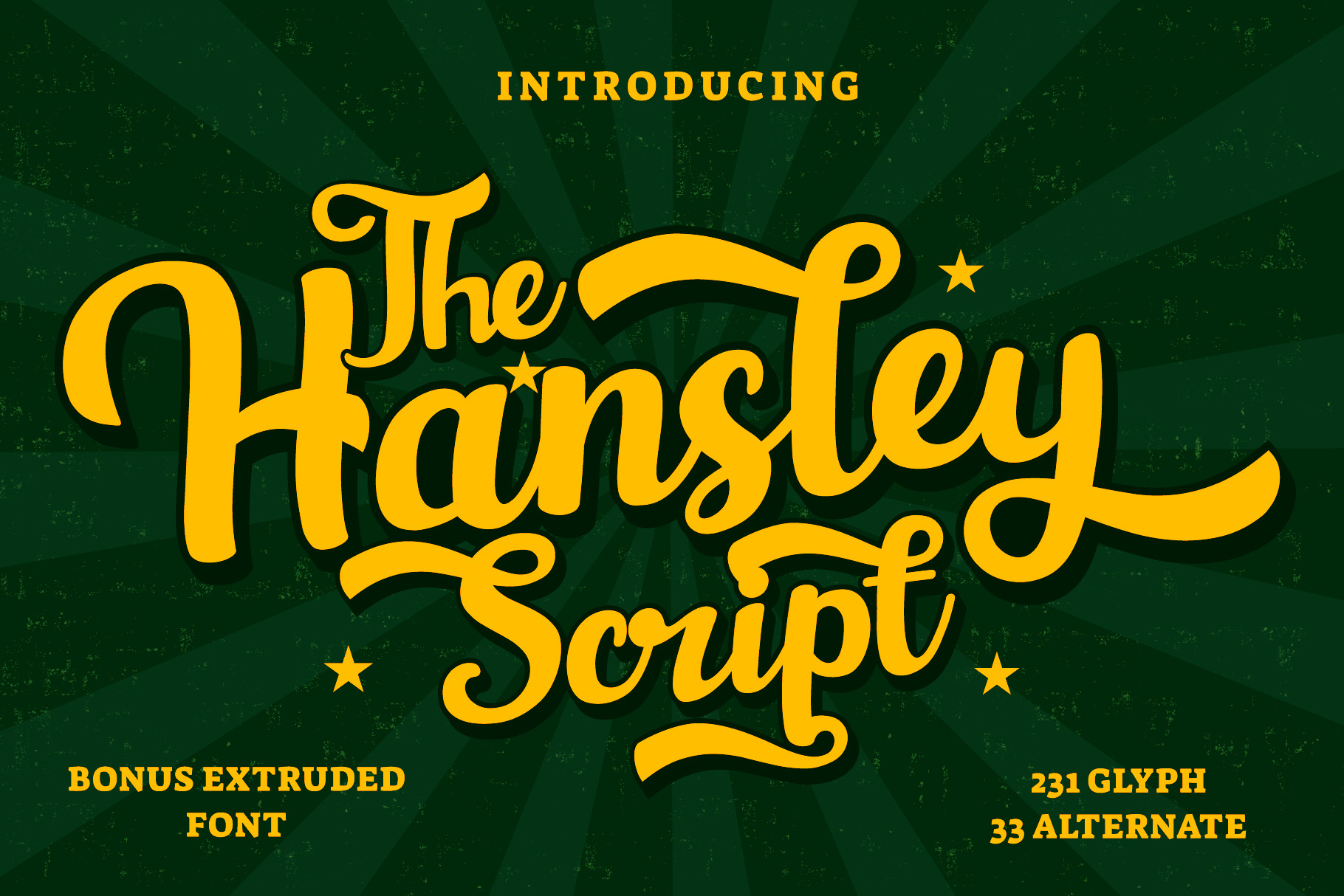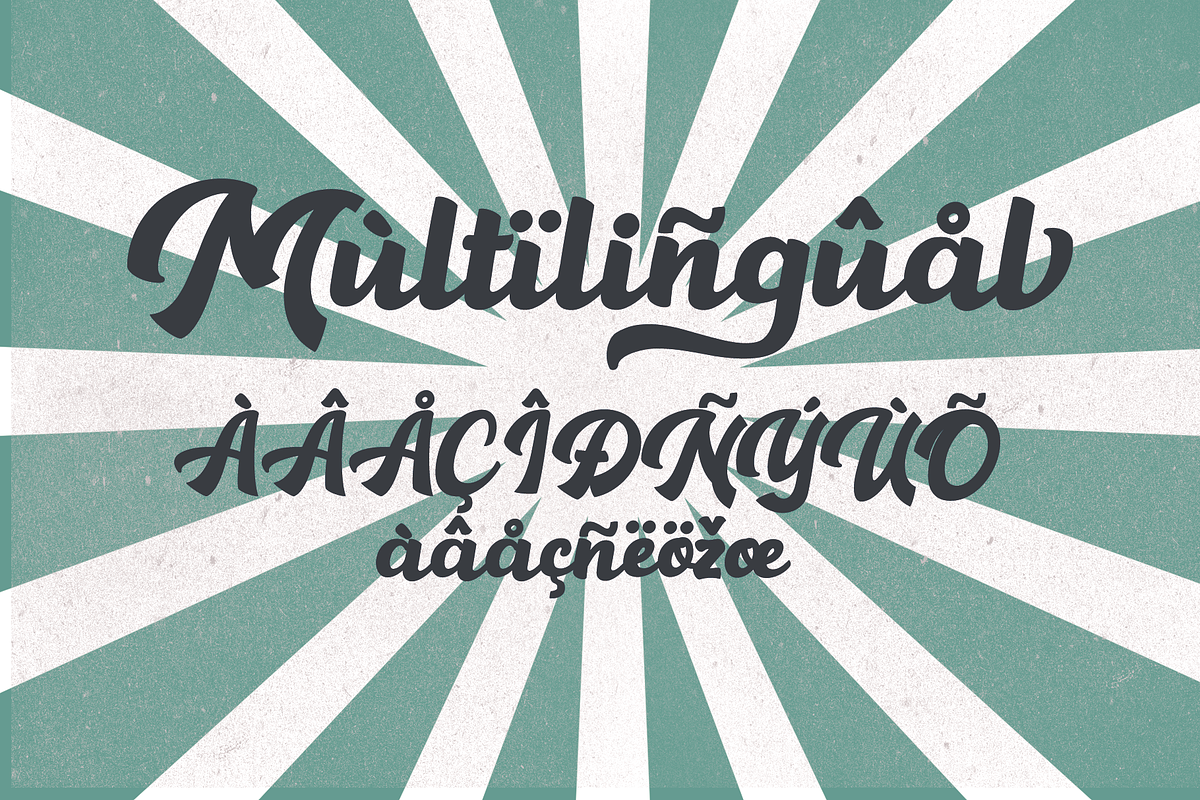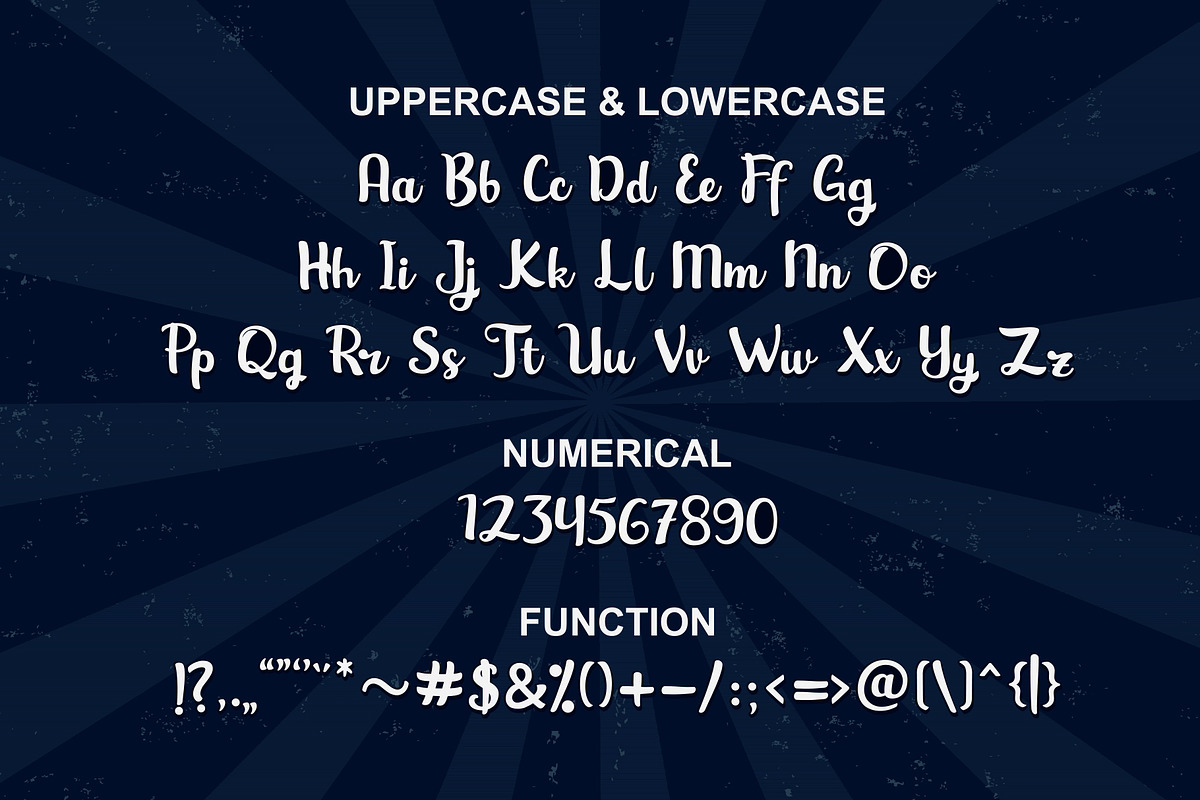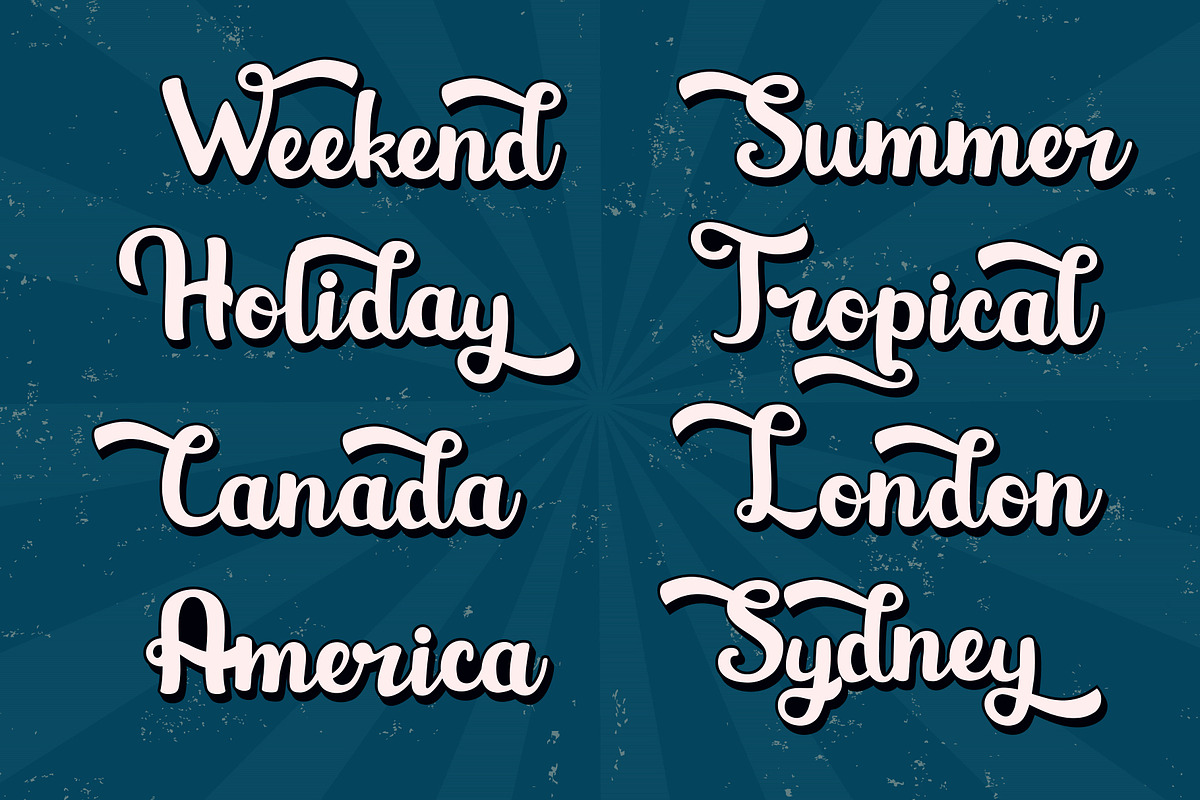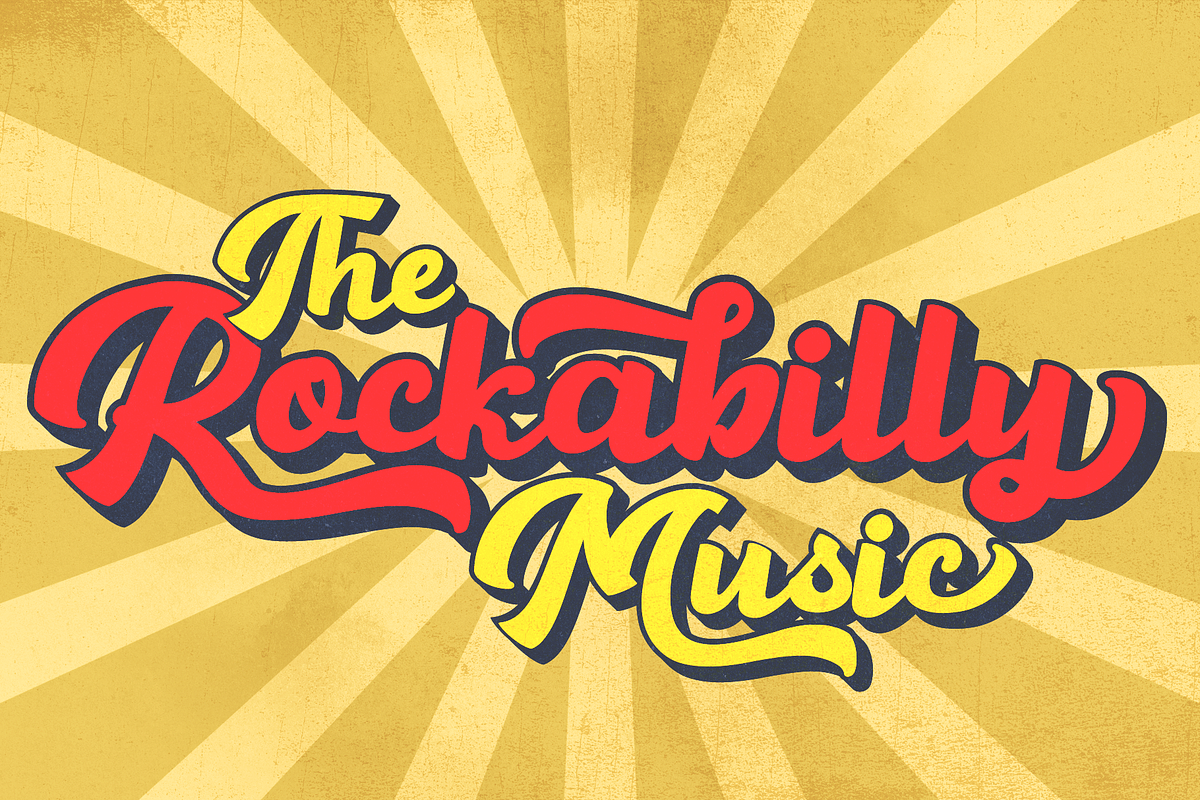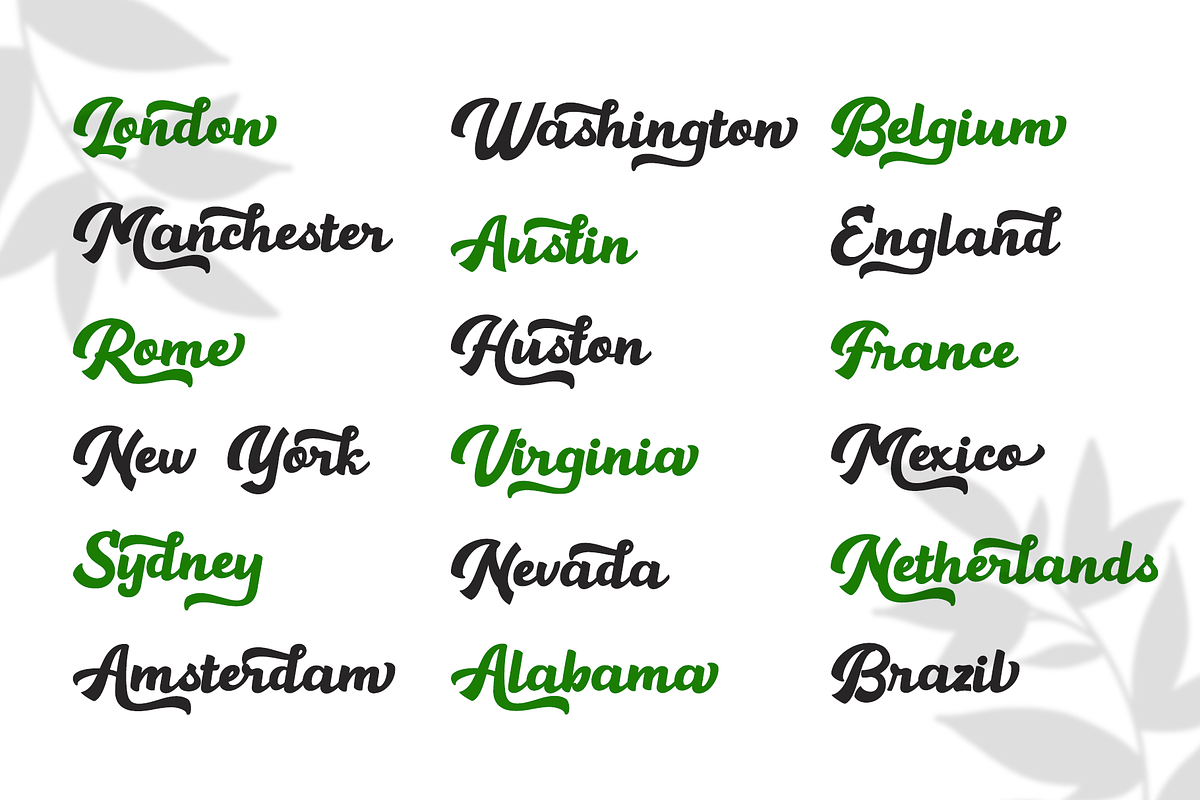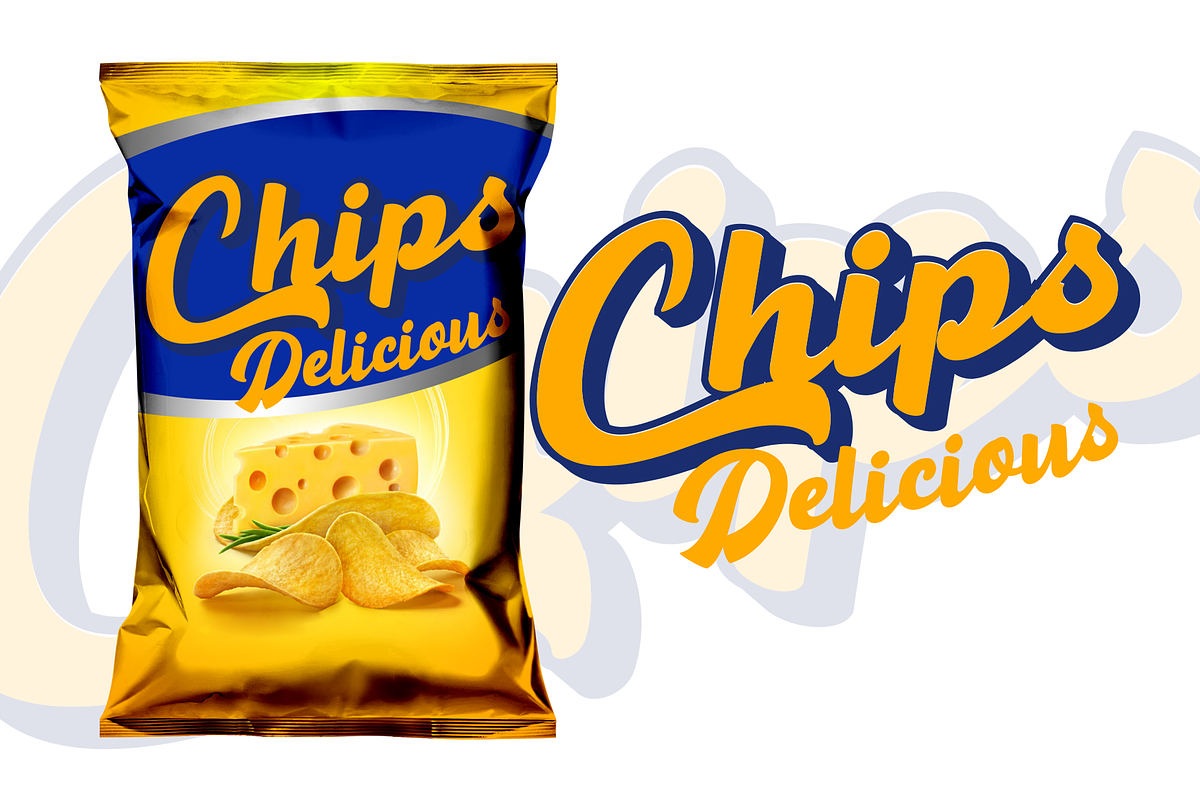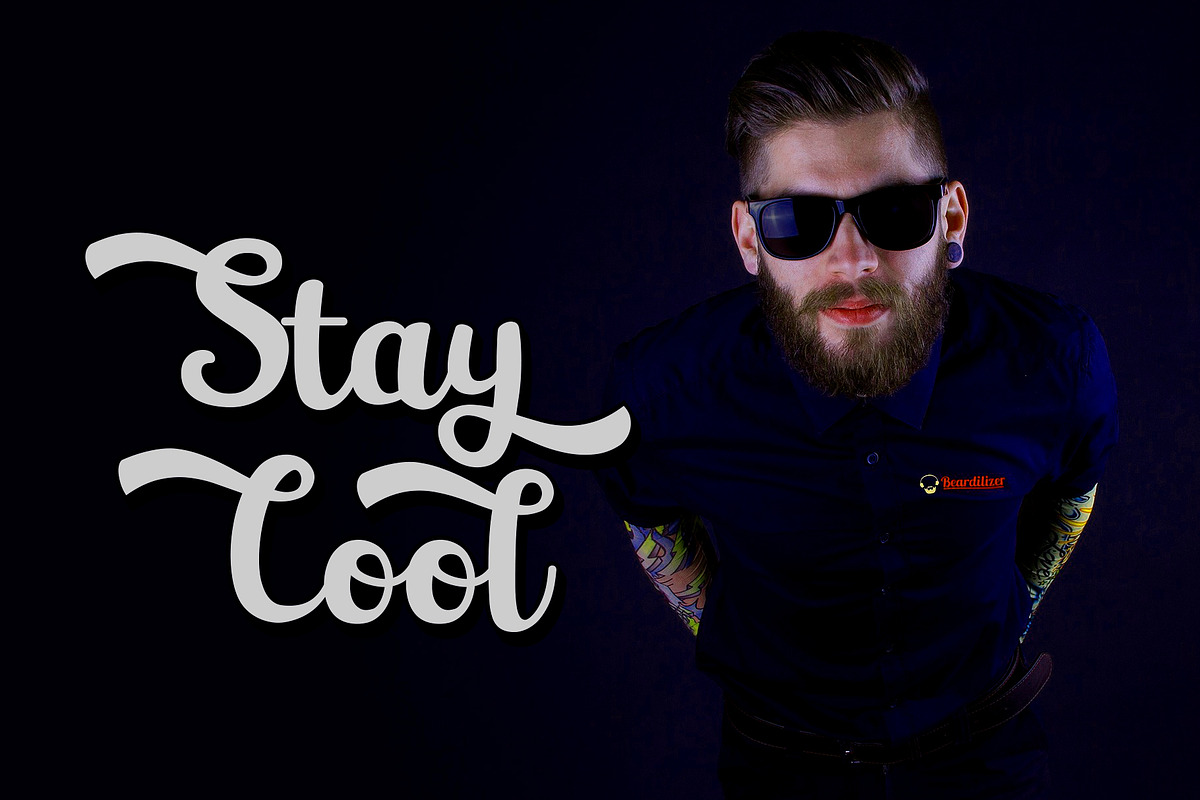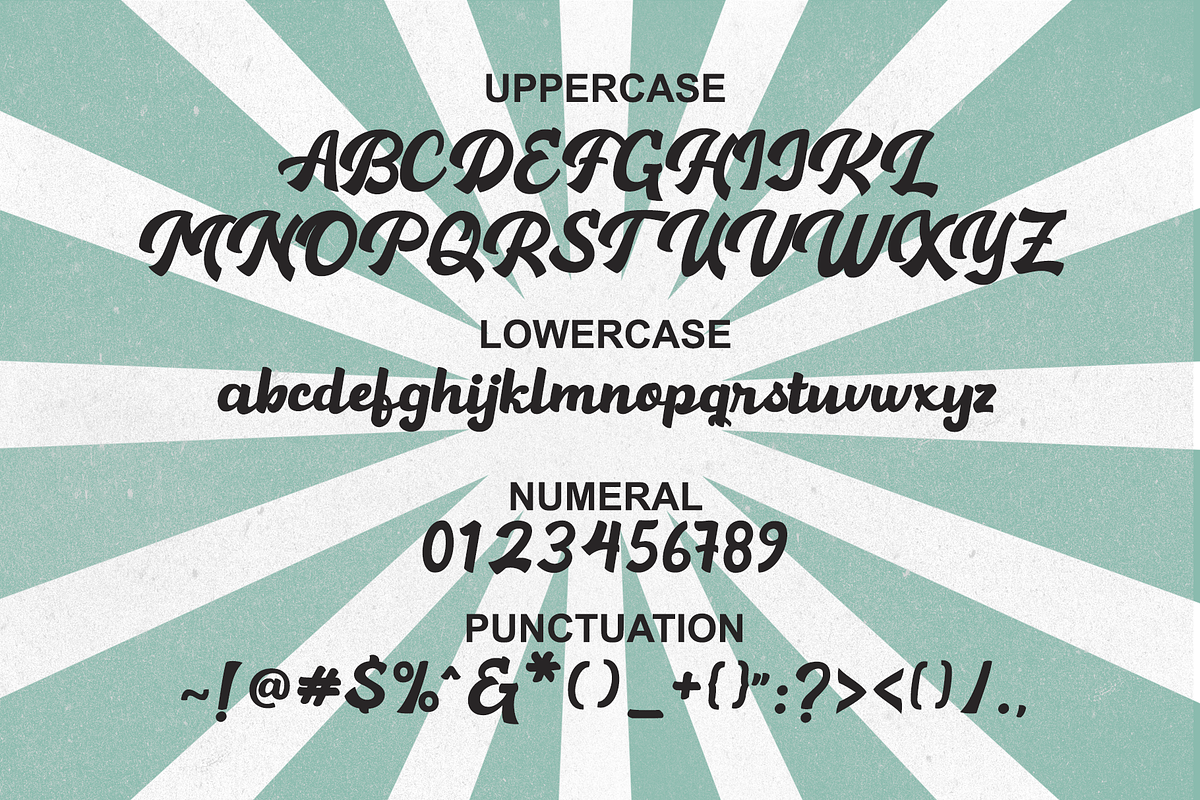
Hansley - Retro Font
Hansley Hamelin are two of the fonts we put together, because they are the same and almost similar themes. Inspired by Retro style and combination with Hand Lettering style. Every single letters have been carefully crafted to make your text looks beautiful. I hope this can make inspire you from your work. Font is PUA encoded so you can access extras from character map in most design software.
- Alternate Stylistic Character
- Multilanguage Support